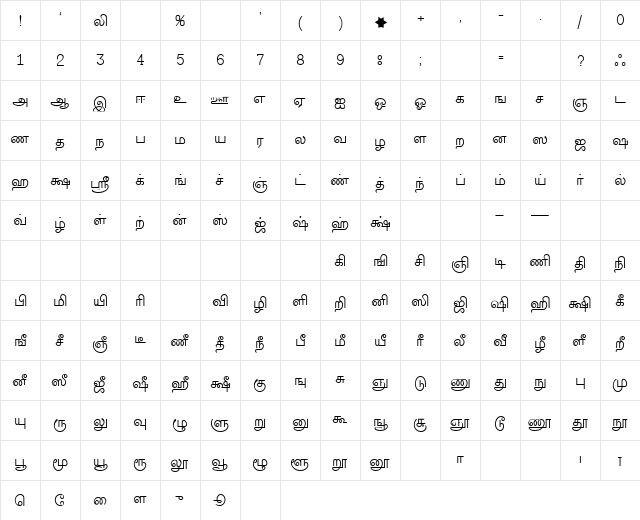
TMNEWS normal Font Preview
TMNEWS normal
Design Context for TMNEWS Typeface
TMNEWS is a composed and adaptable typeface that performs quietly and consistently across a wide range of design contexts.